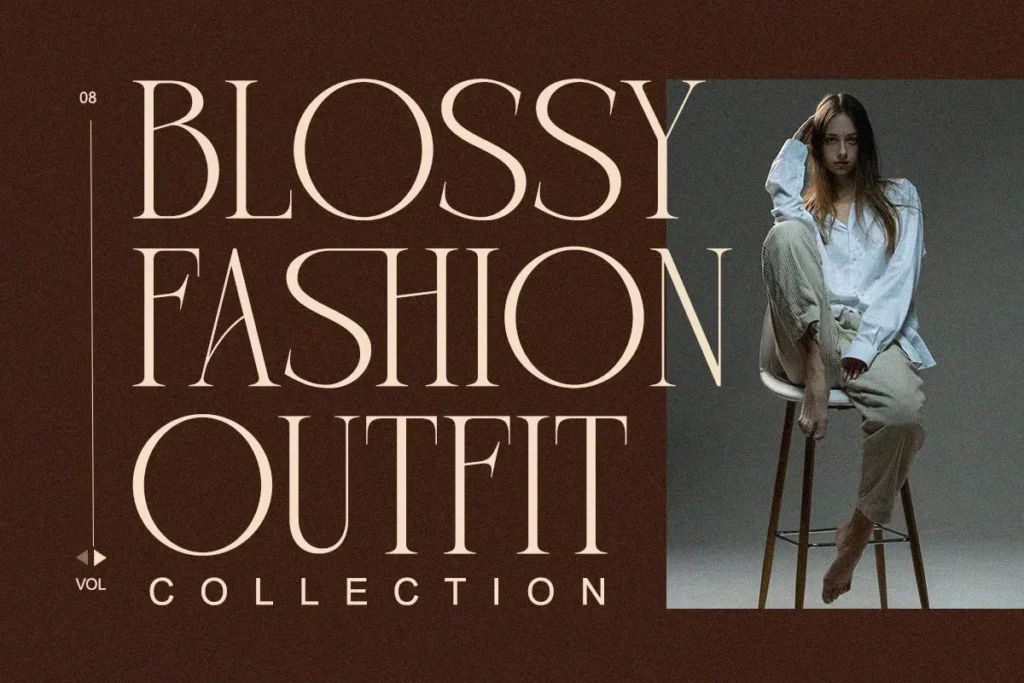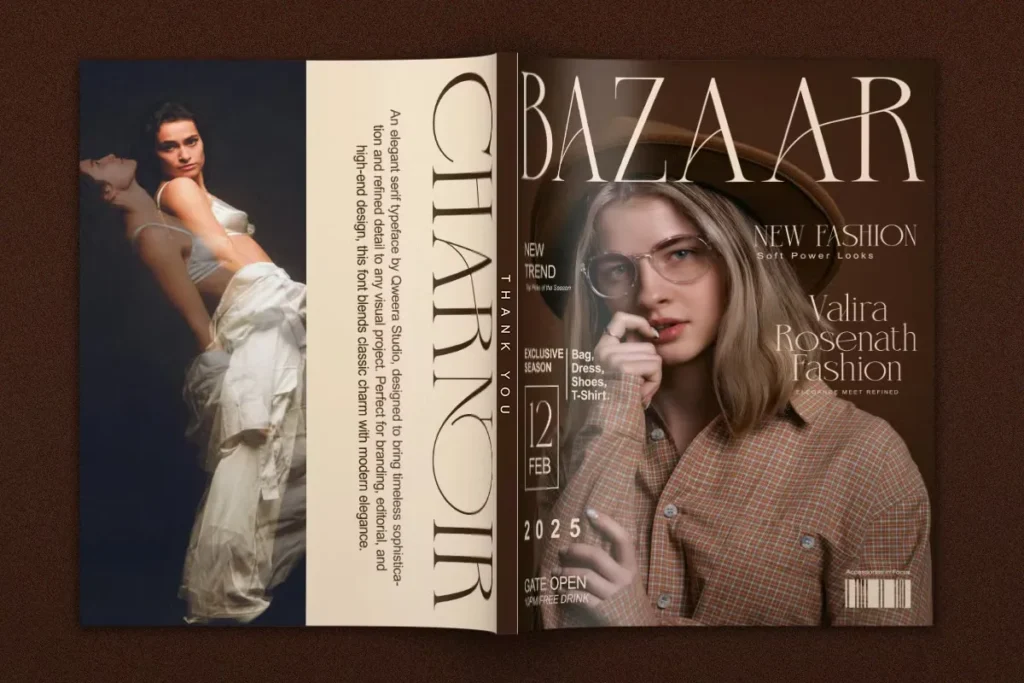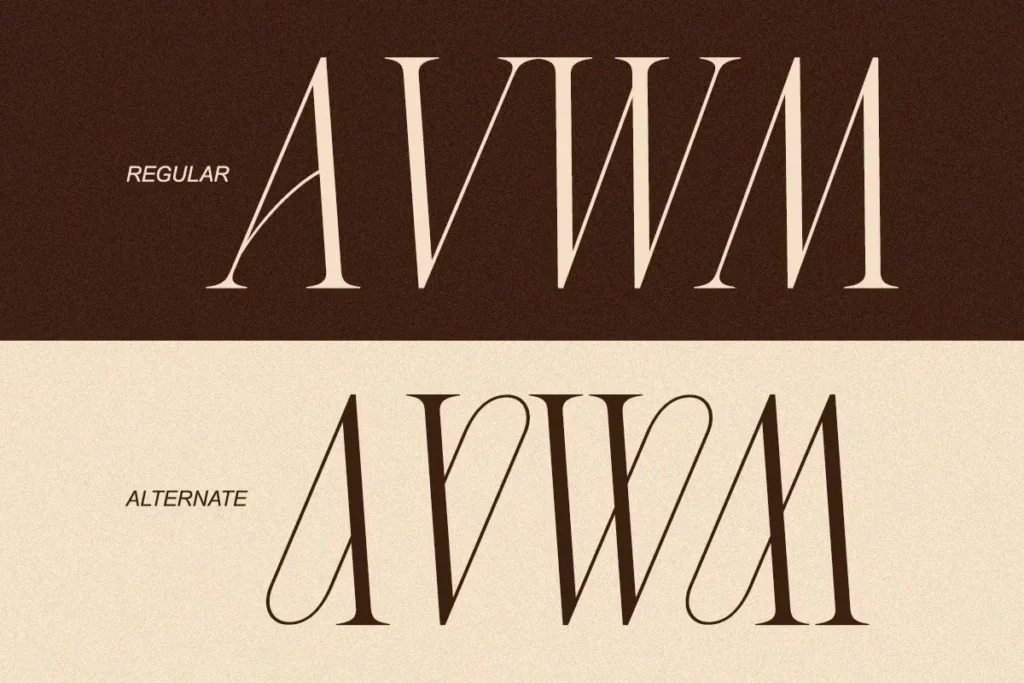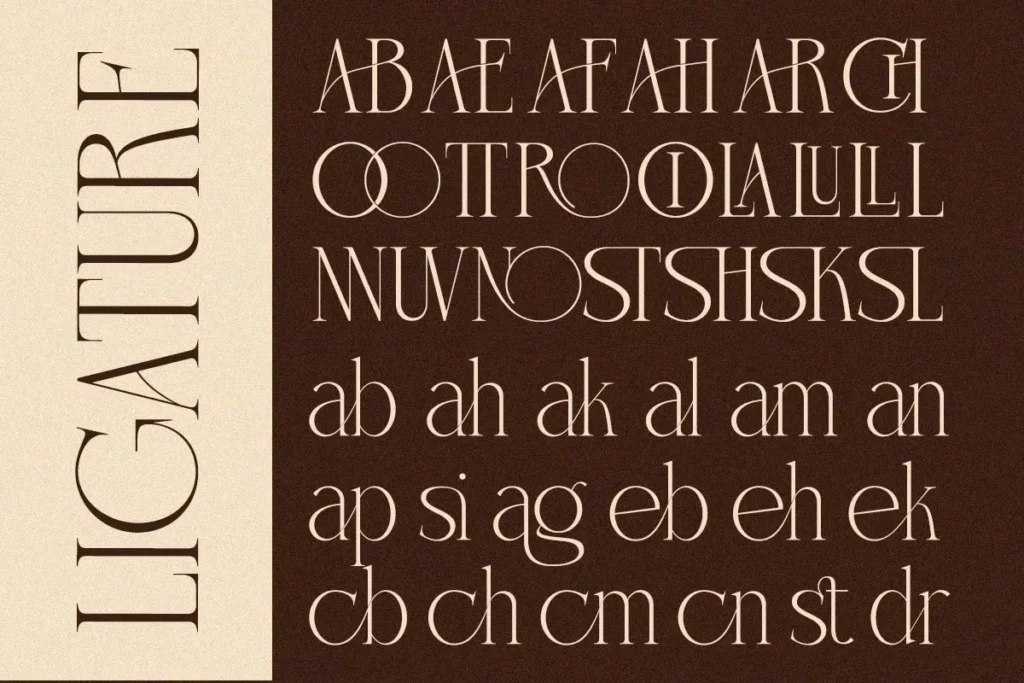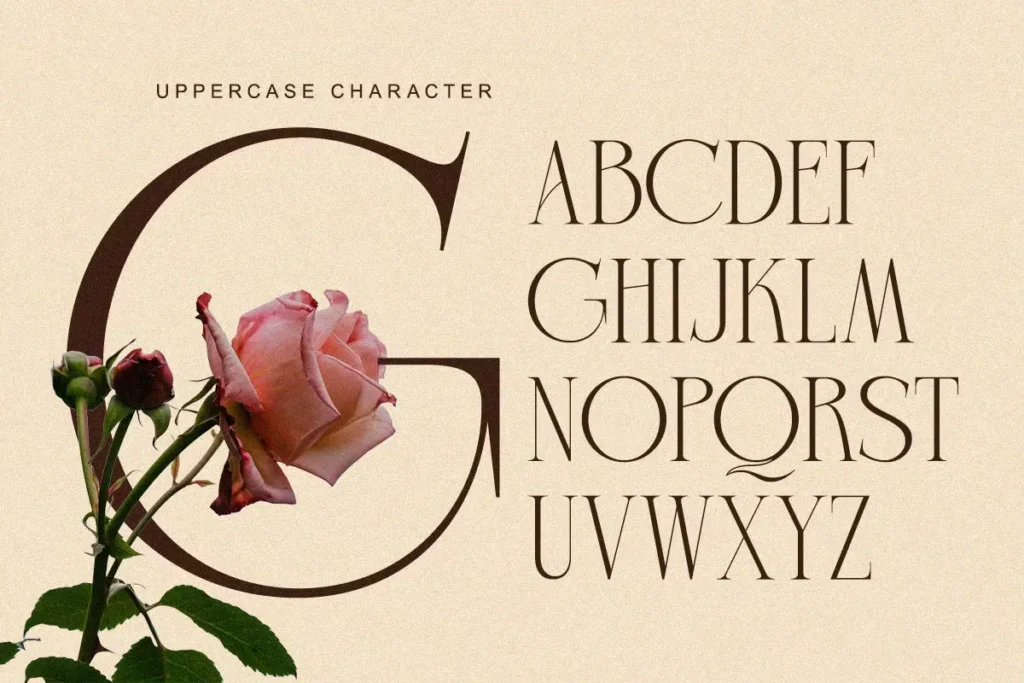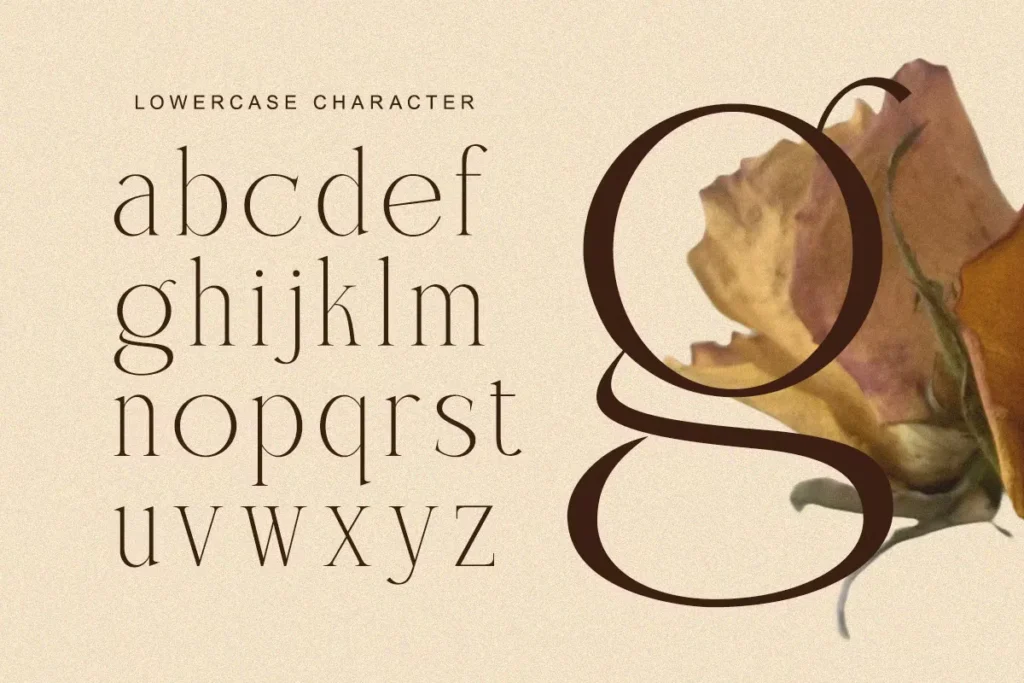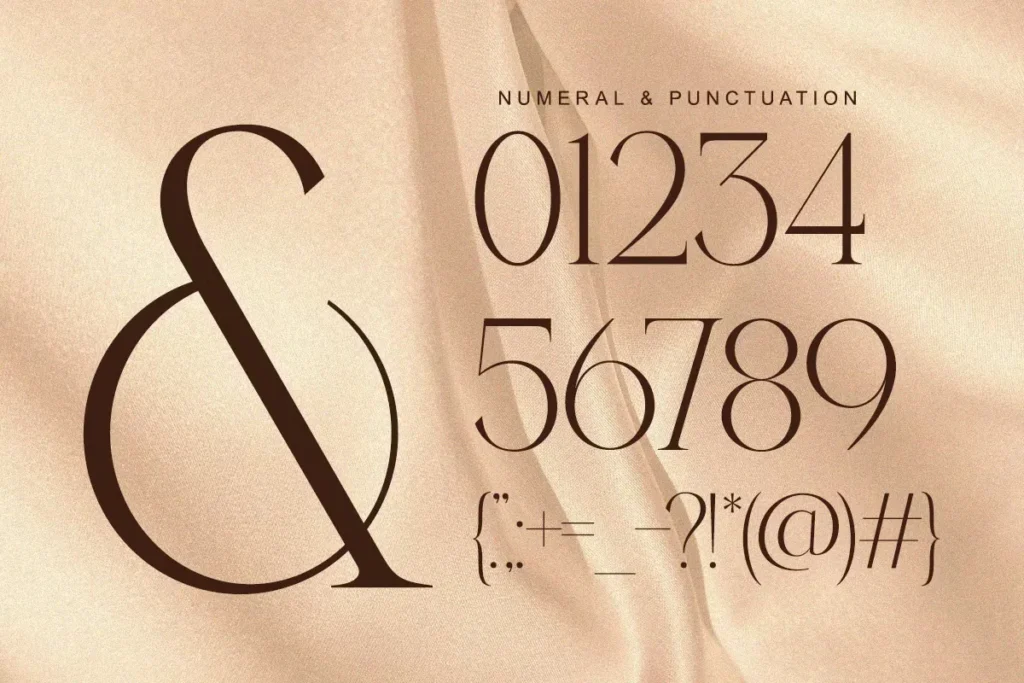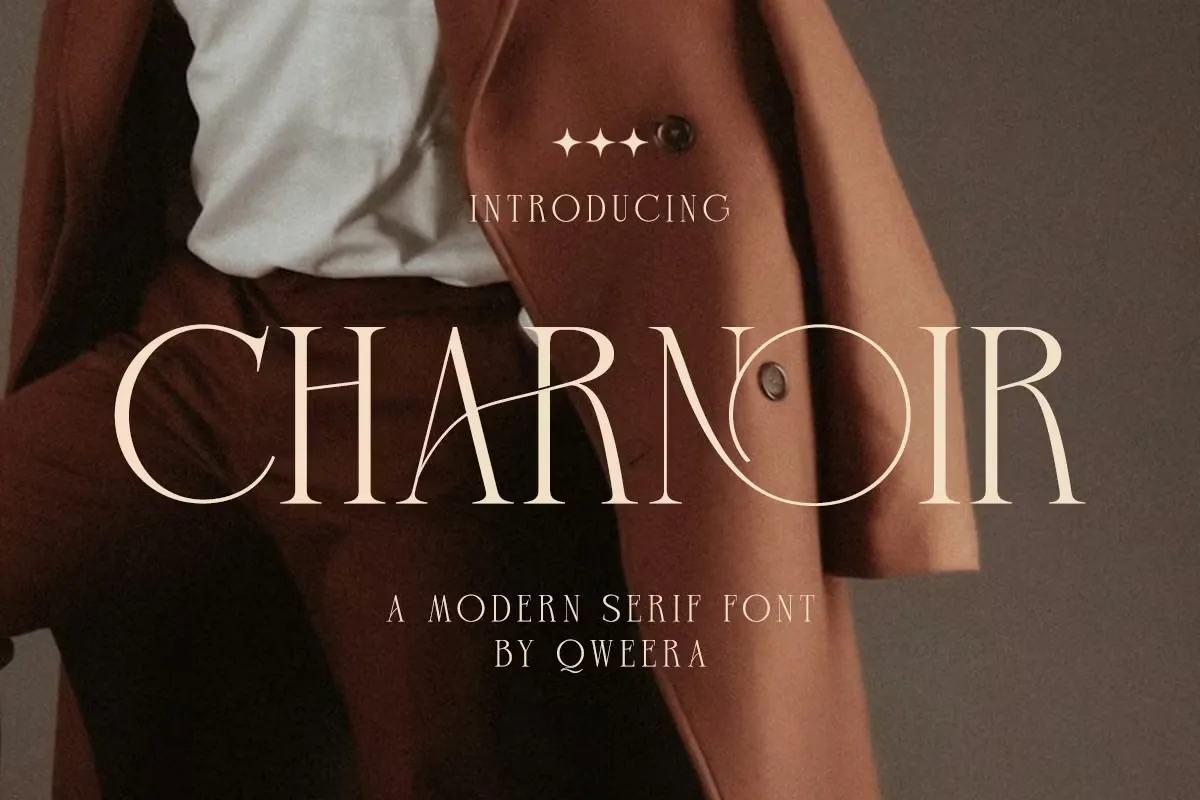
Charnoir is a sophisticated modern serif font designed to bring luxury, elegance, and timeless beauty to any creative project. Combining dramatic curves with clean minimalist details, this premium typeface creates a refined visual presence that instantly elevates branding, editorial layouts, and logo designs. Inspired by high-fashion aesthetics and contemporary luxury branding, Charnoir offers a perfect balance of grace and personality.
The font includes both Regular and Italic styles, along with beautiful alternates and ligatures that allow designers to create unique and expressive typography. Every character has been carefully crafted to deliver a polished, upscale appearance suitable for modern creative work. Its multilingual support makes it versatile for international projects, while multiple file formats including OTF, TTF, WOFF, and WOFF2 ensure seamless use across print and digital platforms.
Charnoir is an excellent choice for fashion magazines, luxury product packaging, boutique branding, feminine logos, wedding invitations, social media graphics, editorial headlines, and premium identity systems. Whether you’re creating a stylish Instagram campaign, an elegant monogram, or a high-end brand identity, Charnoir provides the sophistication and visual impact needed to make your designs stand out with confidence, prestige, and modern elegance.
Charnoir Free Modern Elegant Luxury Font